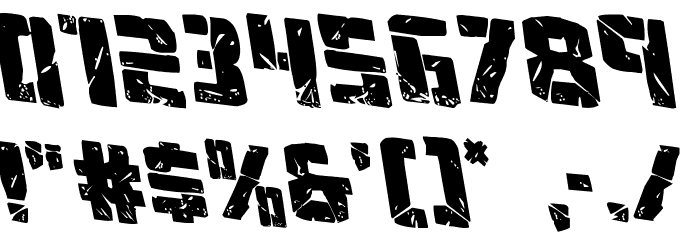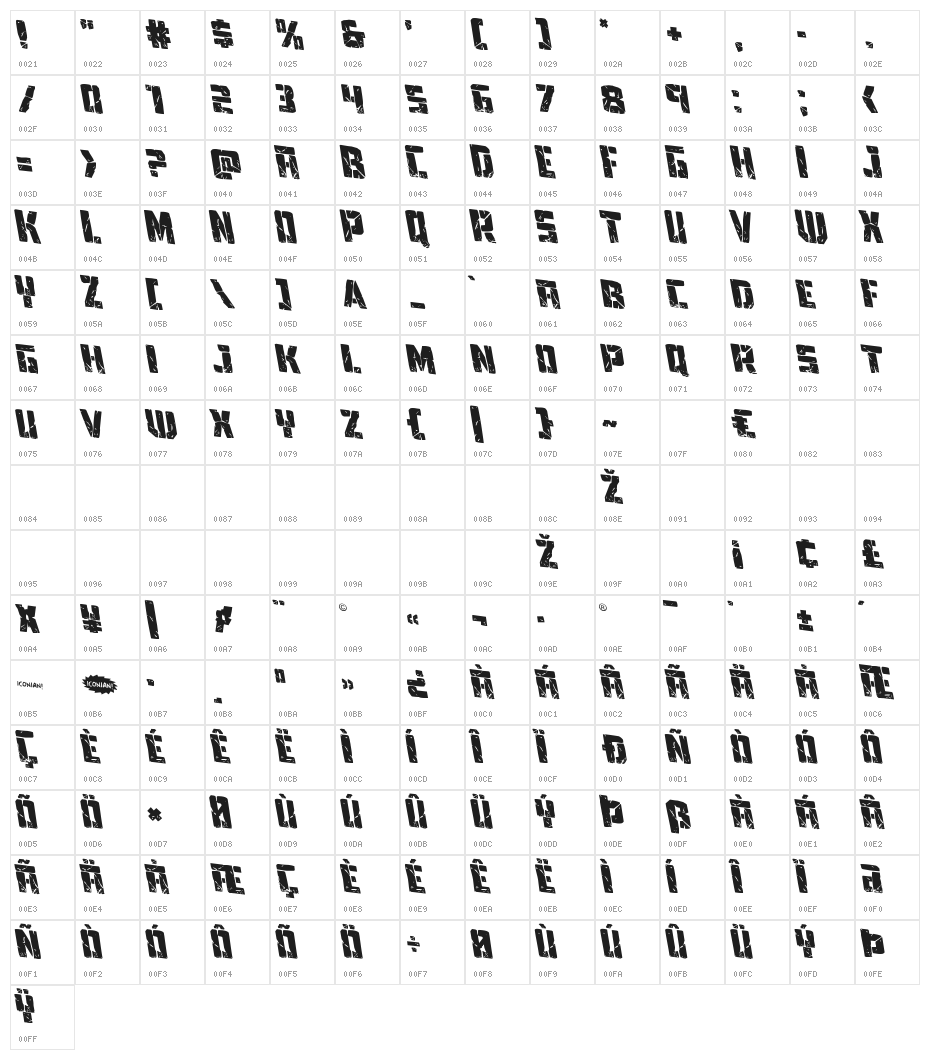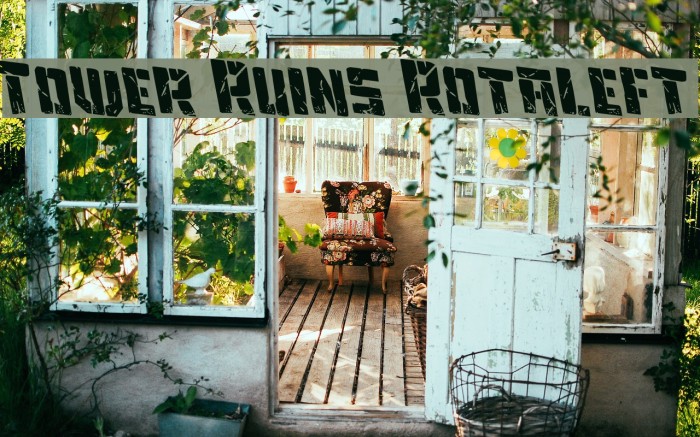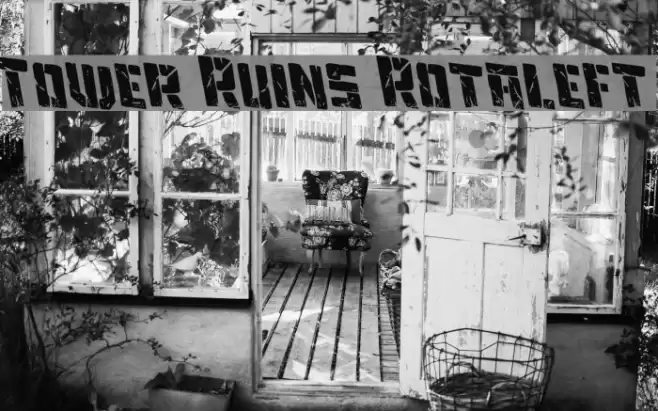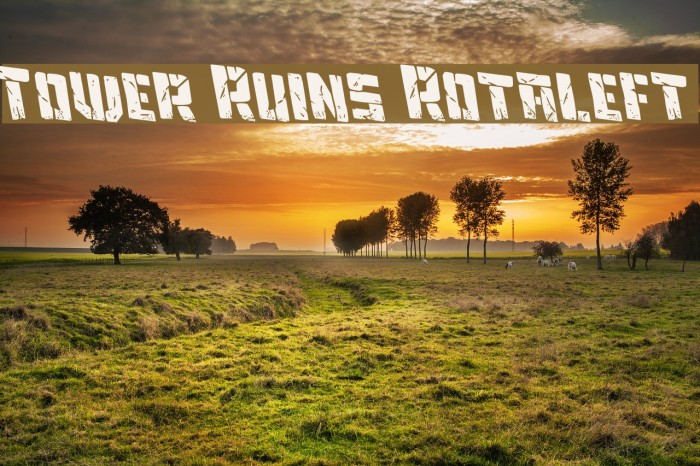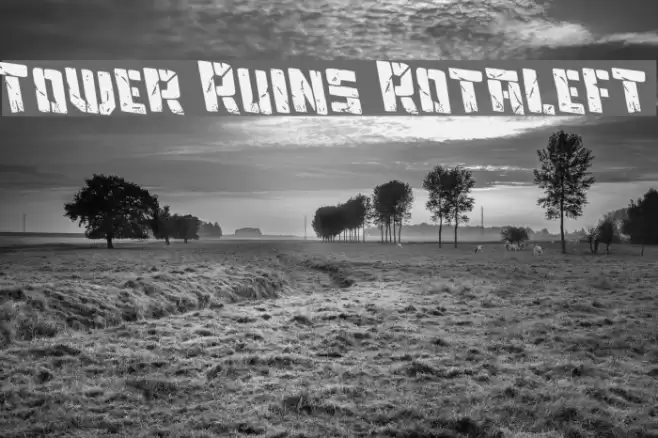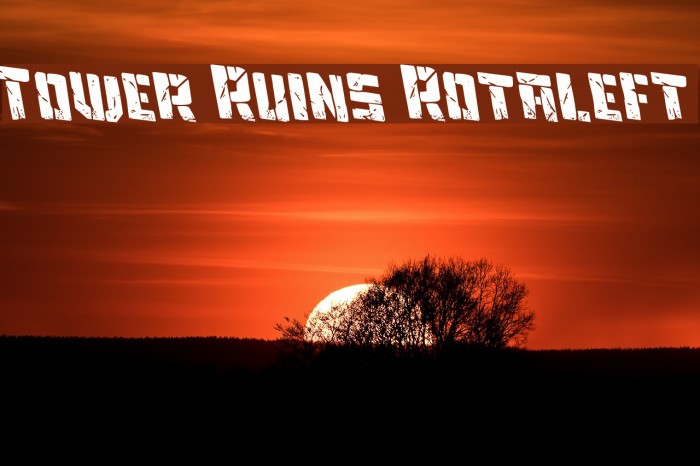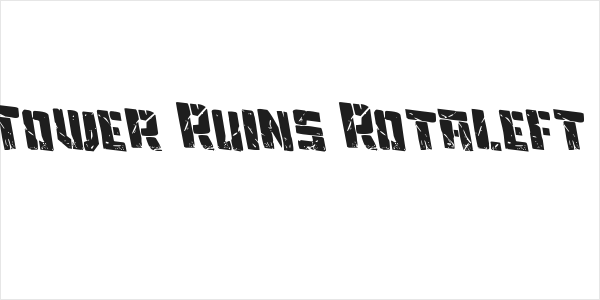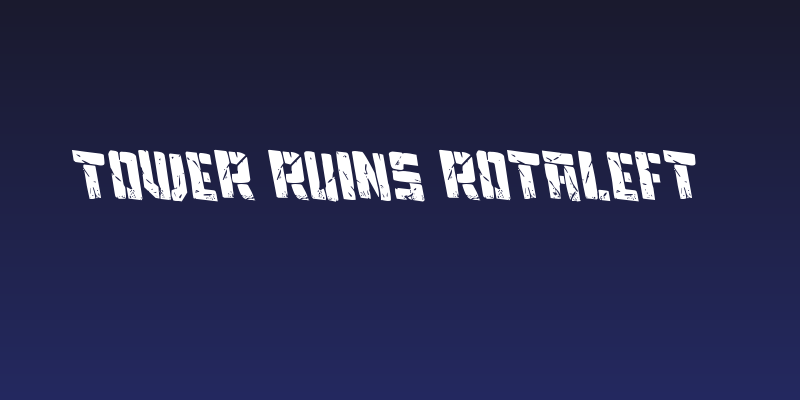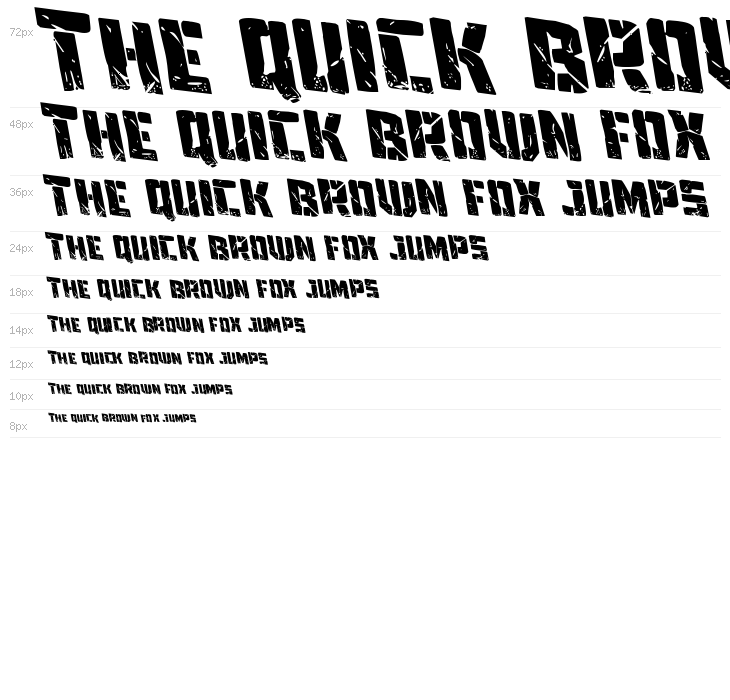
Tower Ruins Rotaleft Font
Tower Ruins Rotaleft Description
This font features a rugged, distressed style with a bold and impactful appearance. The characters are designed with a rough, textured look, giving them a worn and weathered feel. The uppercase and lowercase letters maintain a consistent design, with sharp angles and a blocky structure. Numbers and special characters follow the same aesthetic, ensuring a cohesive look across all elements. The font's unique style makes it stand out, ideal for projects that require a strong, edgy visual impact.
| Proposed Projects | Ideal for posters, album covers, video game graphics, and branding that requires a strong, edgy look. |